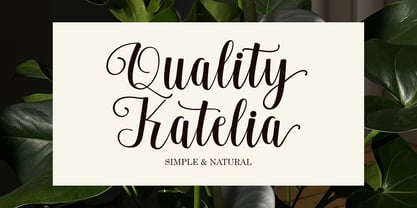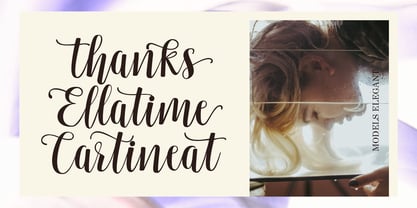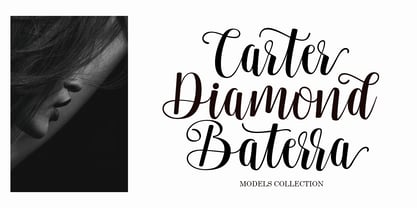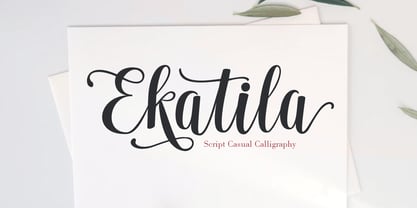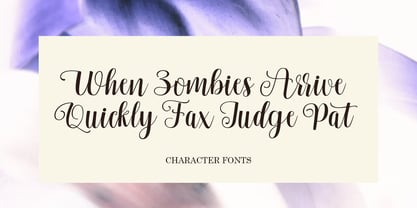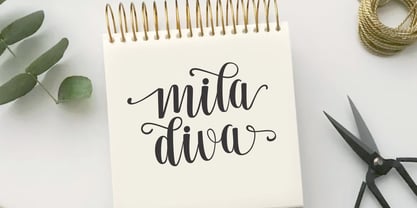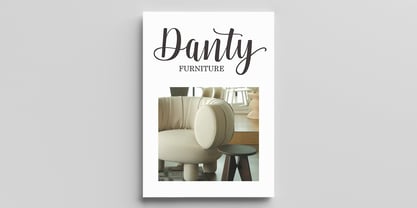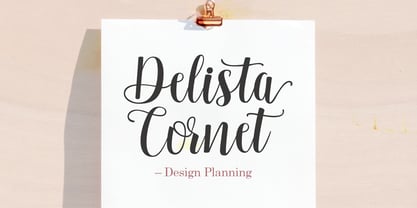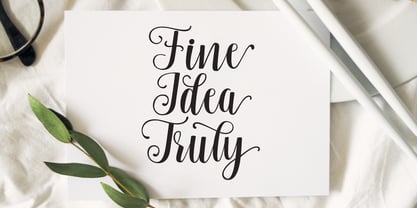
Ekatila
Ekatila is a beautifully crafted handwritten calligraphy font, designed with a unique, feminine, and elegant touch. This beautiful typeface is available in regular and bold versions.
Ekatila stands out for its extensive collection of glyphs. Each letter has numerous alternatives, easily accessible in applications that support.
Ekatila is highly versatile, offering endless possibilities for customization and creativity in your designs, such as branding, logos, advertisements, merchandise, social media posts, packaging, magazine covers, websites, wedding invitations, etc.